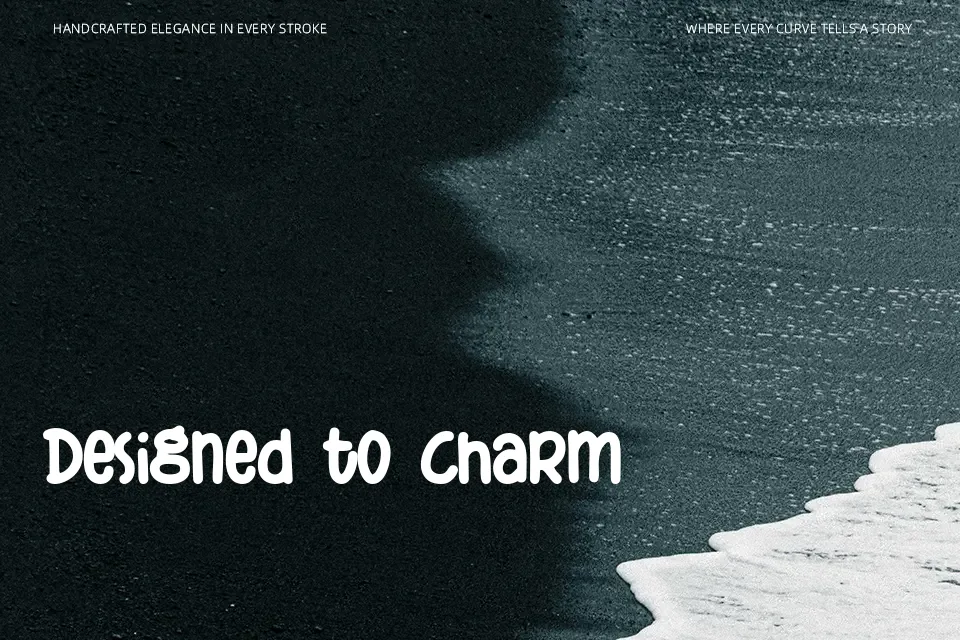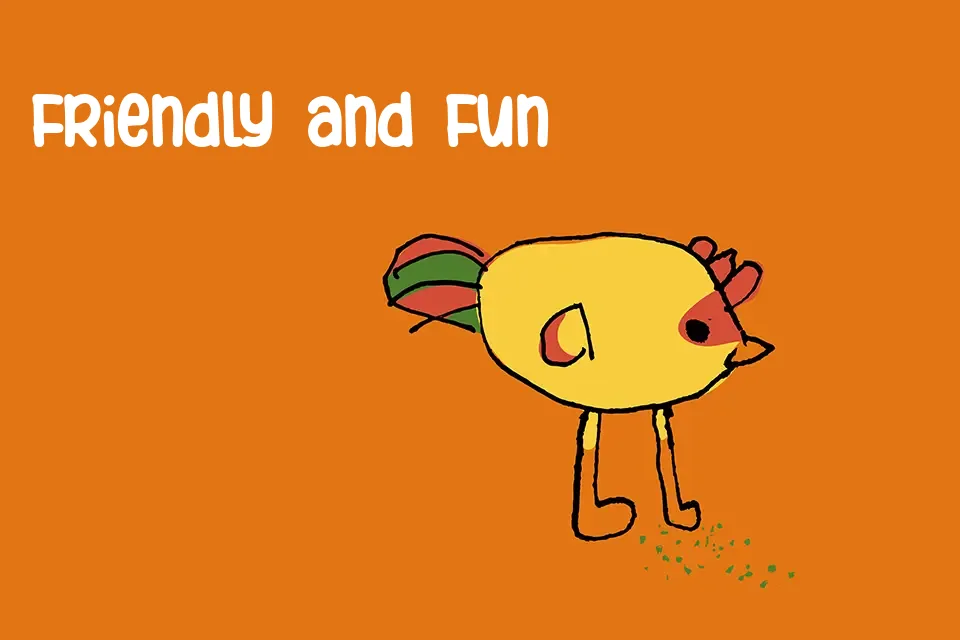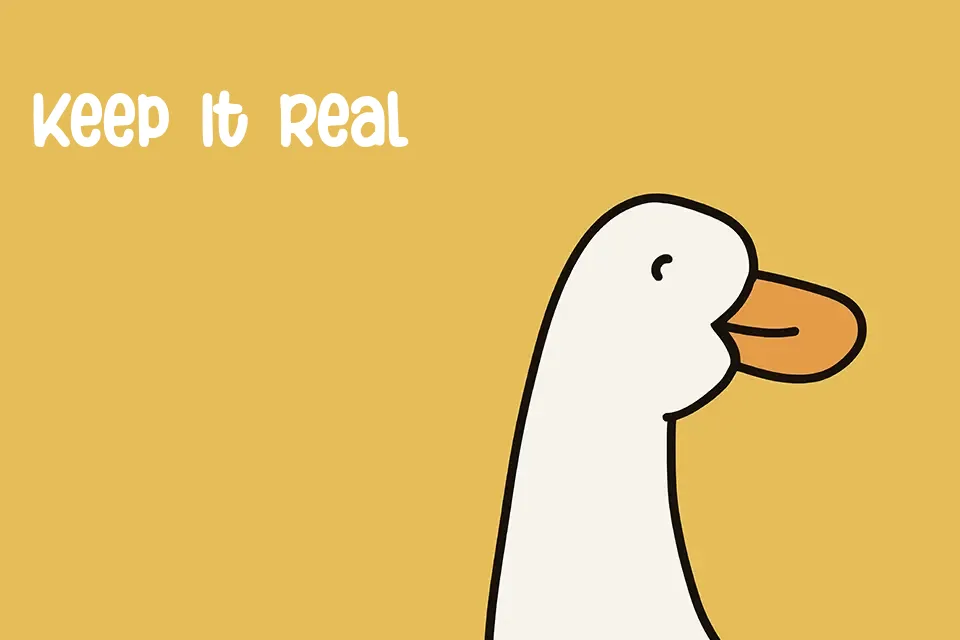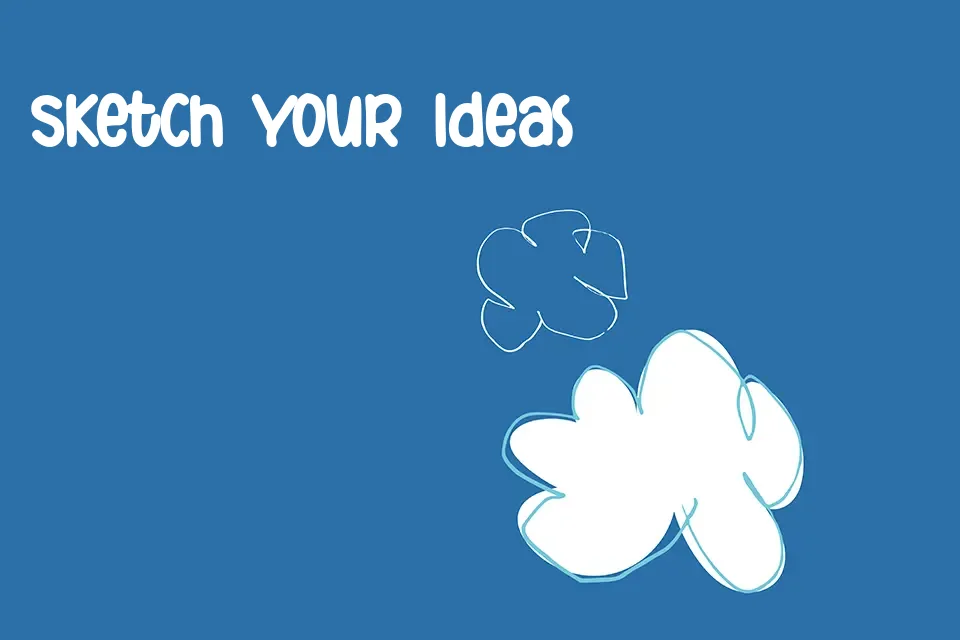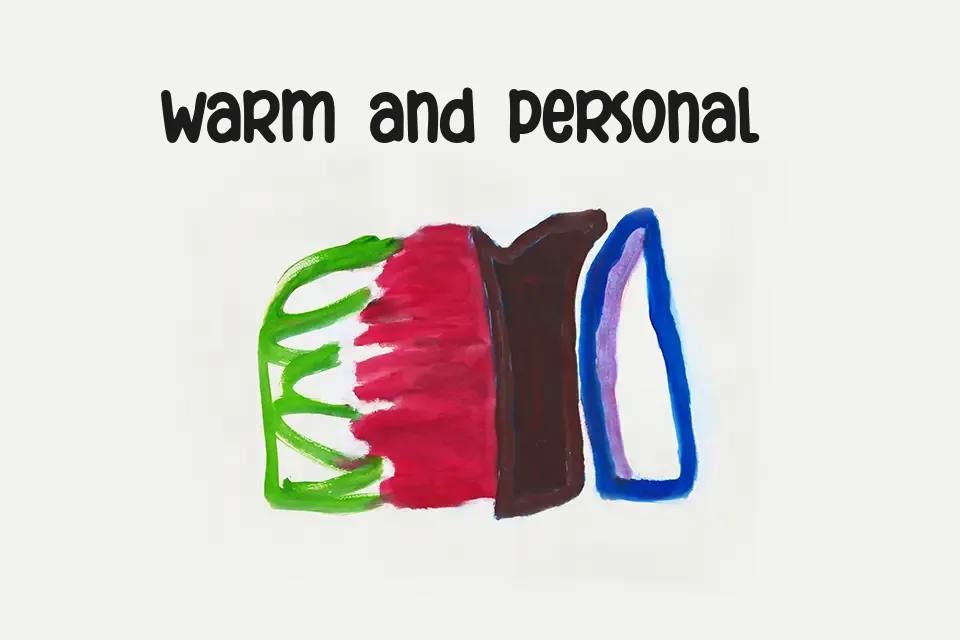
Bashirah Font
Designed by Cititype
Bashirah carries an unmistakably casual energy — its letterforms are loose and uneven, with strokes that mimic a fast-moving pen rather than a controlled brush. The characters lean with informal rhythm, making it readable at headline scale but visually restless in tight configurations. It fits well in quote card layouts, blog post headers, and social media captions where warmth matters more than formality. That looseness, though, becomes a drawback when applied to event invitations or anything that needs polished elegance — the font simply lacks that refinement. Single-weight and limited in glyph count, it won’t carry multilingual projects or complex typesetting needs. Best deployed at larger sizes, where the hand-drawn character reads as intentional rather than rough.
Best For:- social media quote graphics
– casual blog or lifestyle poster headers
– personal greeting card layouts
– informal packaging labels for handmade goods
Not Ideal For:- formal invitations or wedding stationery
– body text or extended reading passages
– corporate branding or professional reports
– multilingual or symbol-heavy design projects
Perfect for headline, invitation, and poster, with a creative and cartoon style.